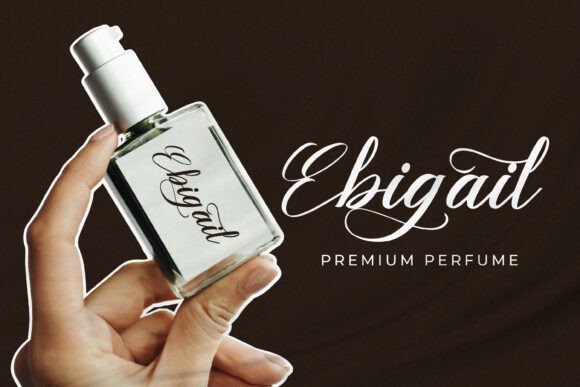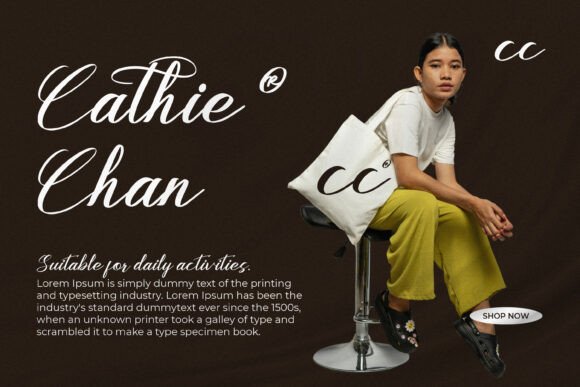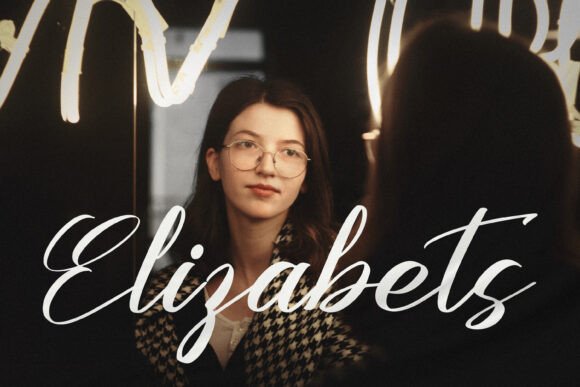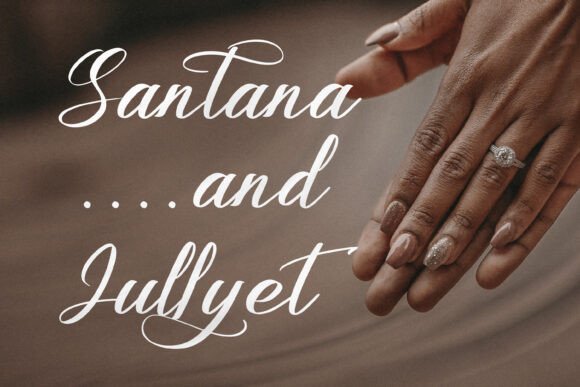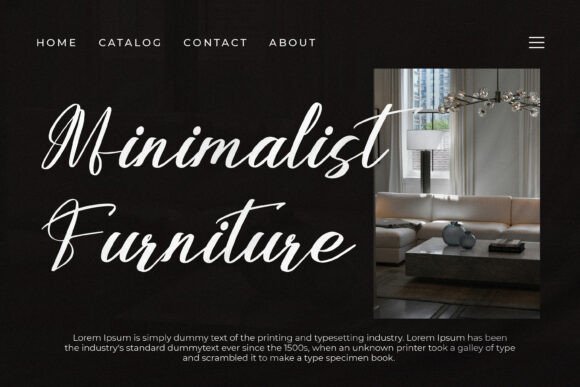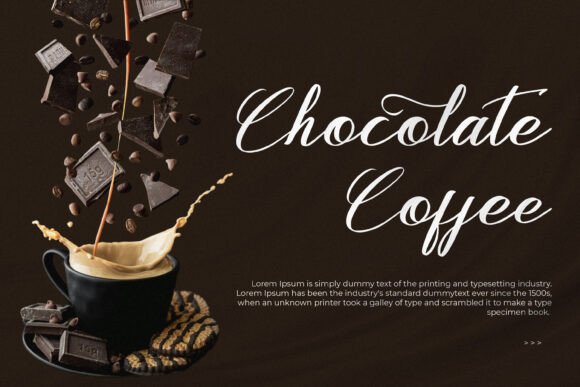
Introduction to Emeline Font
Have you ever found yourself lost in a world of endless design possibilities, searching for that perfect font to elevate your creative project? For many designers, this is a familiar experience. But what if I told you that you’ve stumbled upon a treasure trove of elegance and sophistication, waiting to be unleashed on your next design adventure?
Meet Emeline Font, a stunning calligraphy script font that will transport your text to a world of refinement and charm. With its smooth, flowing letters, Emeline Font is the perfect addition to any design project, from wedding invitations to logos, greeting cards, and more.
As a valuable resource for designers, Emeline Font offers a high-quality, free download option, complete with a transparent background, making it easy to incorporate into your designs. Whether you’re a seasoned pro or just starting out, Emeline Font is sure to become a trusted design companion, helping you create stunning visuals that leave a lasting impression.
Key Features of Emeline Font
- High-quality design resource with a transparent background, ideal for creative projects.
- Unique, elegant script font suitable for a variety of design applications, from wedding invitations to branding materials.
Honest Review: Emeline Font
I recently had the chance to work with the Emeline Font, and I must say, it’s been a game-changer for my creative projects. This free download has quickly become one of my go-to design resources.
- ✨ High-Quality Typography: The Emeline Font features elegant, modern typography that adds a touch of sophistication to any design.
While the Emeline Font has been a great addition to my design arsenal, there are a few limitations to keep in mind:
- ⚠️ Limited Character Set: The font only includes a limited character set, which may not be suitable for designs that require a wide range of characters.
- ⚠️ No Italic or Bold Variations: Unfortunately, the font does not come in italic or bold variations, which can limit its versatility.
Overall, I’m thoroughly impressed with the Emeline Font. Its high-quality typography and transparent background make it a valuable design resource, and its free download status makes it accessible to designers of all levels. While it has some limitations, I believe it’s a great choice for designers working on creative projects that require a touch of elegance and sophistication.
How to Use Emeline Font
Emeline Font is a versatile font that can be used in a variety of design projects, including blog posts, social media graphics, and presentations. Its high quality and transparent background make it a great resource for designers who want to add a touch of sophistication to their designs.
Tips for Getting the Most Out of Emeline Font
For the best results, use Emeline Font in conjunction with other high-quality design resources, such as graphics and images. Experiment with different font sizes, colors, and styles to find the perfect combination for your creative project. You can also use Emeline Font as a free download to add to your design library.
Alternatives to Emeline Font